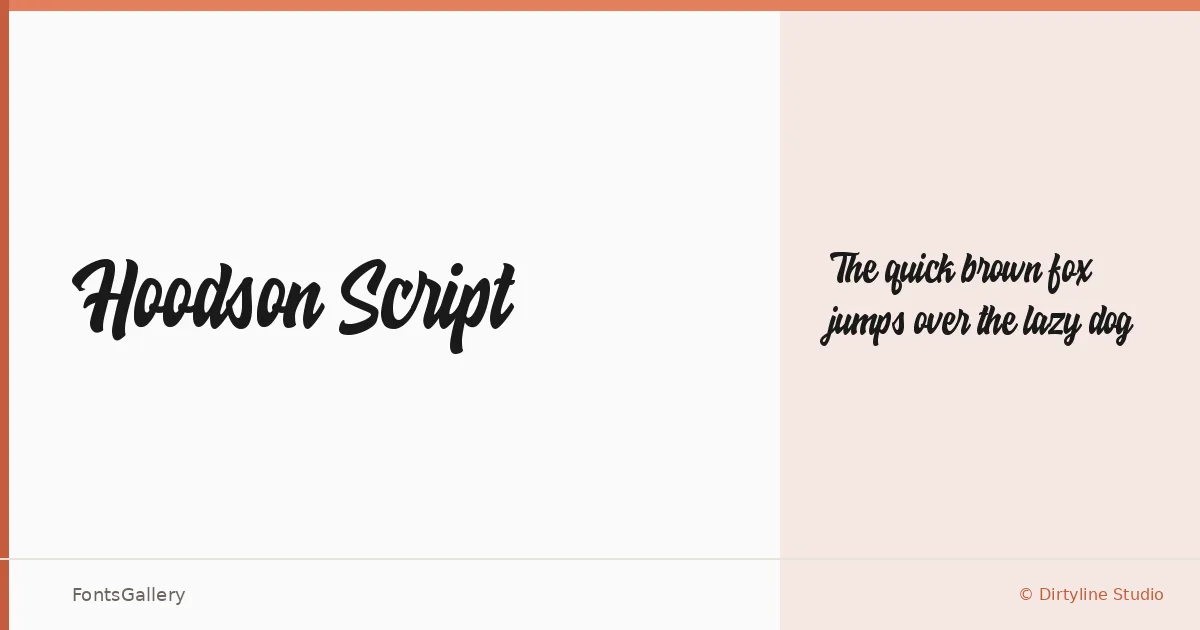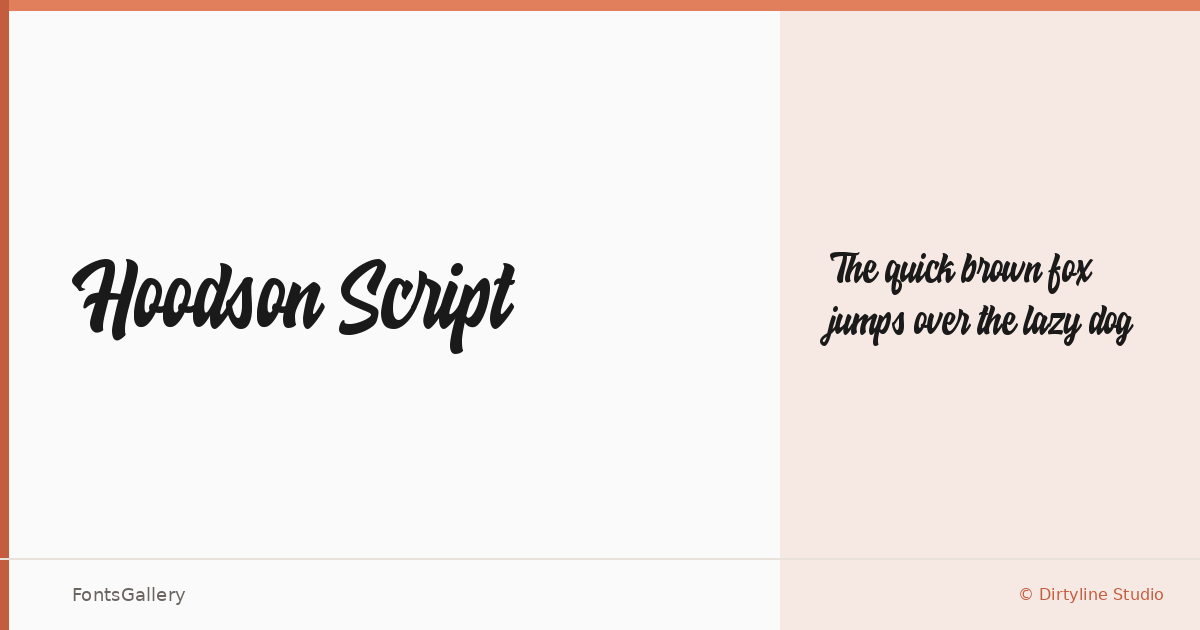
About Hoodson Script Font
There is a confident looseness to this script — the kind of energy that suggests a brush held at a deliberate angle rather than a careful pen. Hoodson Script comes from Hendra Maulia at Dirtyline Studio, and it carries that studio's characteristic instinct for letterforms that feel handcrafted without being precious. The single Regular cut is the whole family here, but it arrives in both TTF and OTF formats, ready to drop straight into a layout.
The mood sits somewhere between vintage signage and modern streetwear — bold enough to anchor a composition, playful enough to avoid feeling corporate. Strokes are assertive, with the kind of weight and rhythm that reads immediately at display sizes. Latin character coverage keeps the focus tight, and the letterforms reward contexts where personality matters more than neutrality.
It earns its place in branding and logo work, on poster headlines, social media graphics, and T-shirt designs where a script needs to carry visual weight without disappearing into a busy background. For pairing, the controlled geometry of Helvetica or the editorial refinement of Canela both give it a strong counterpart, while ABC Arizona, Anglecia Pro, and (AH) Manal each offer their own contrast — serif structure against the script's casual confidence.